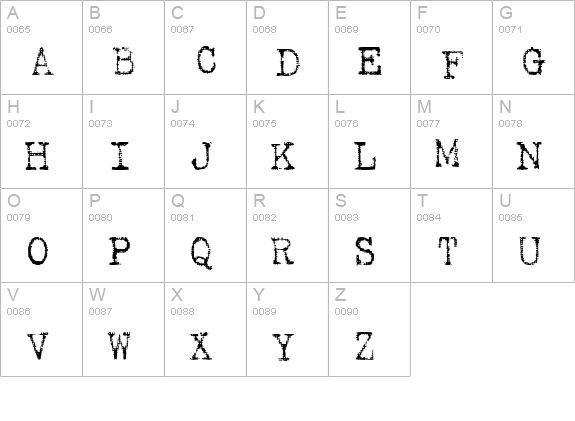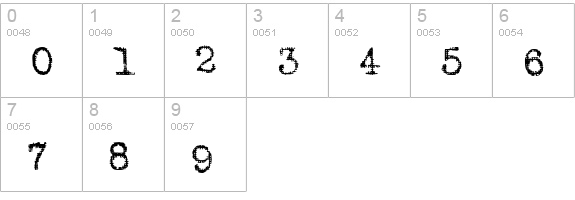
TypewriterRough Font Details
TypewriterRough font is a stunning display typeface that seamlessly blends vintage charm with a rough and textured aesthetic. Its unique design captures the essence of old-school typewriters, evoking a sense of nostalgia and authenticity. The irregular letterforms and gritty texture add a touch of character and rawness to any design project. With its versatile nature, TypewriterRough font can be used for a wide range of creative purposes. Whether you're designing a retro-inspired poster, creating a vintage logo, or adding a touch of authenticity to your digital artwork, this font is sure to make a lasting impression. What sets TypewriterRough font apart is that it is available for free. Yes, you read that right - this incredible font can be downloaded at no cost from FontsMarket.com. It's a fantastic opportunity for designers and creatives to enhance their projects without breaking the bank. So, why wait? Head over to FontsMarket.com and download TypewriterRough font today. Unleash your creativity and let this font bring a touch of classic elegance to your designs.